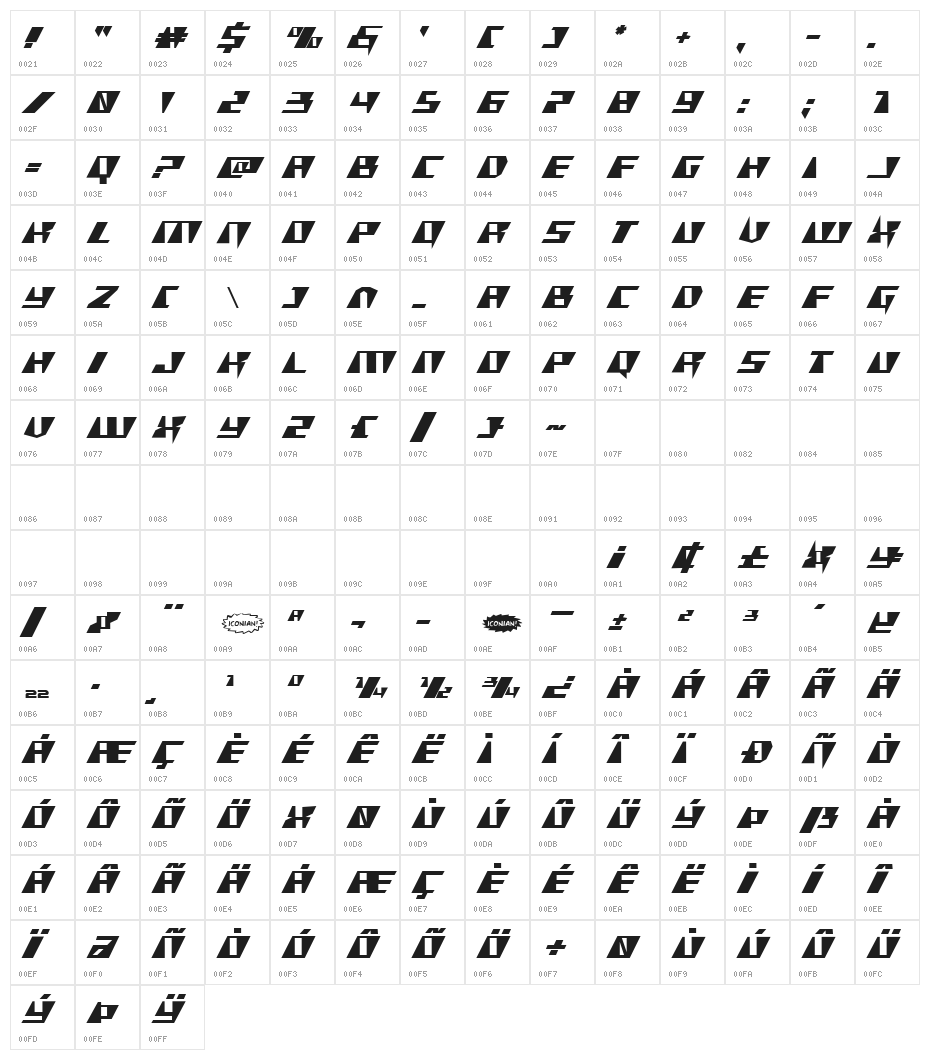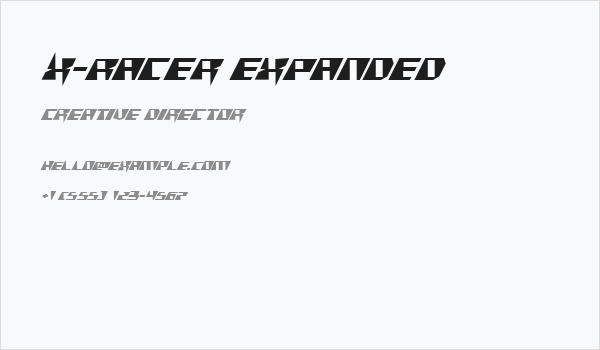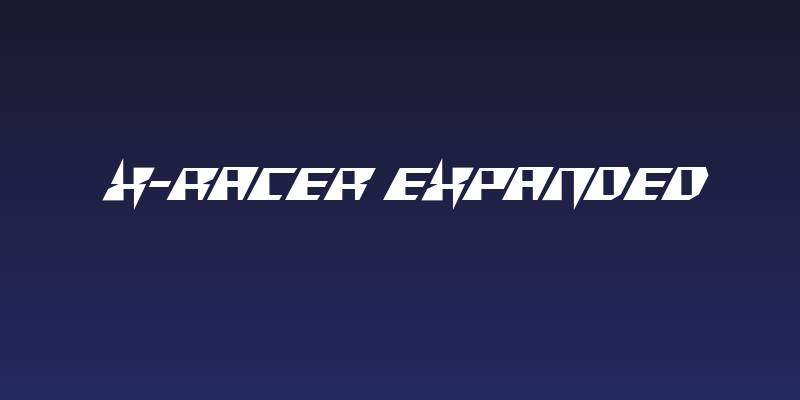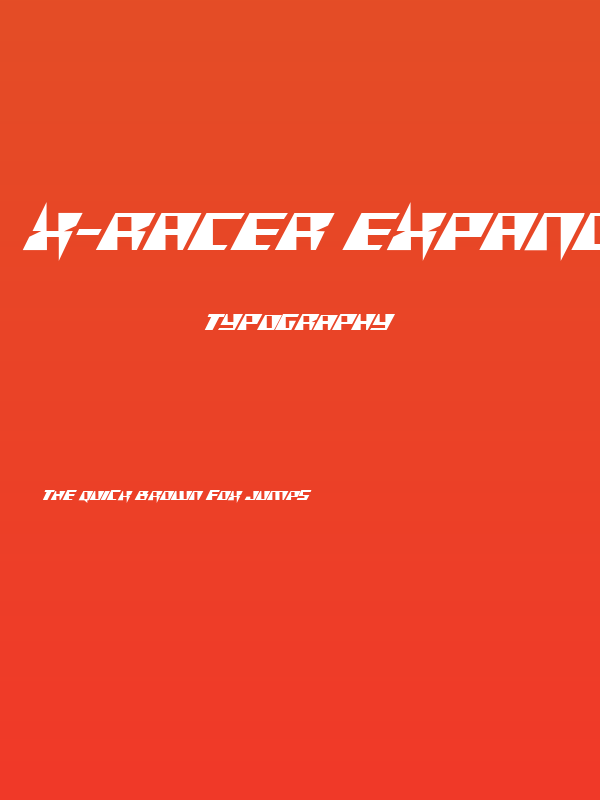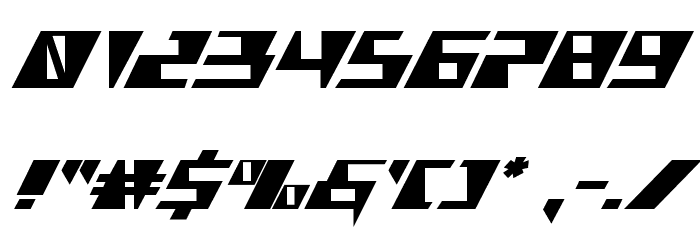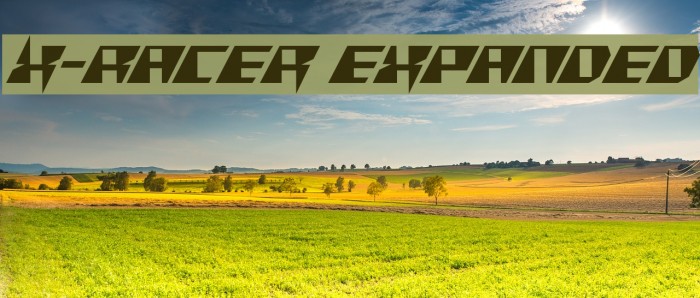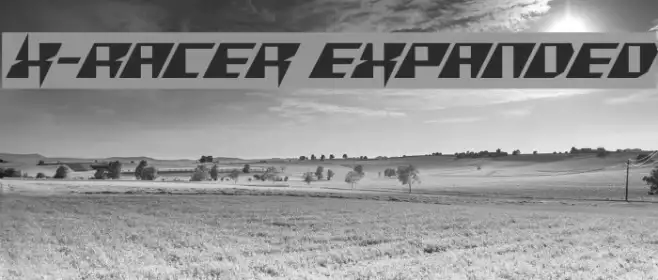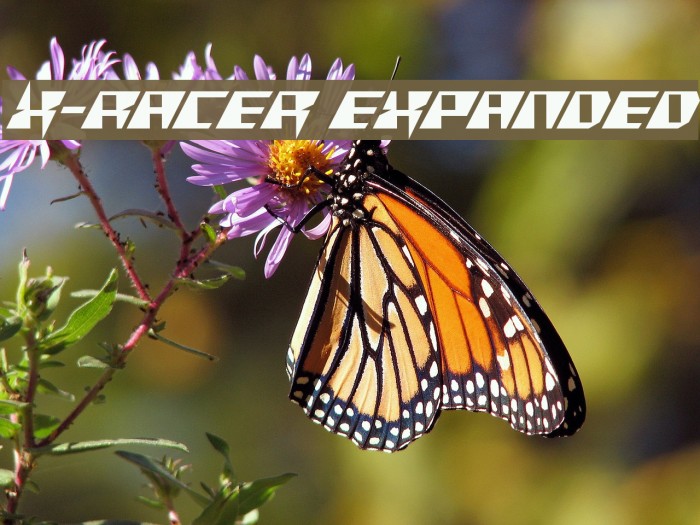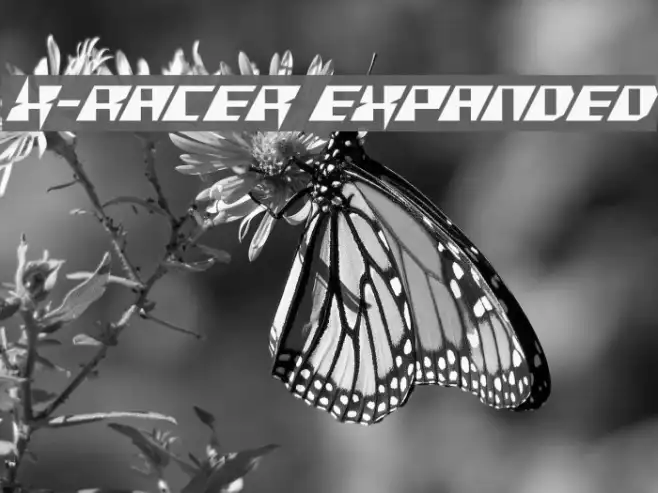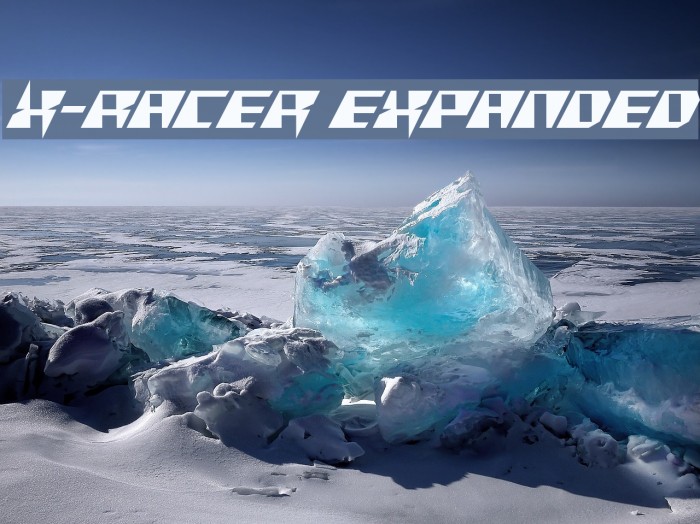
X-Racer Expanded Font
X-Racer Expanded Description
This font features a bold, angular design with a futuristic and dynamic appearance. The characters are sharply cut with geometric precision, giving them a sense of speed and motion. The uppercase and lowercase letters maintain a consistent style, with slanted edges and pointed terminals that create a cohesive look. The numbers and special characters follow the same design principles, ensuring uniformity across all glyphs. This font's unique style makes it stand out, ideal for projects that require a modern and edgy aesthetic.
| Proposed Projects | Ideal for racing-themed graphics, video game titles, sports branding, and futuristic posters. |